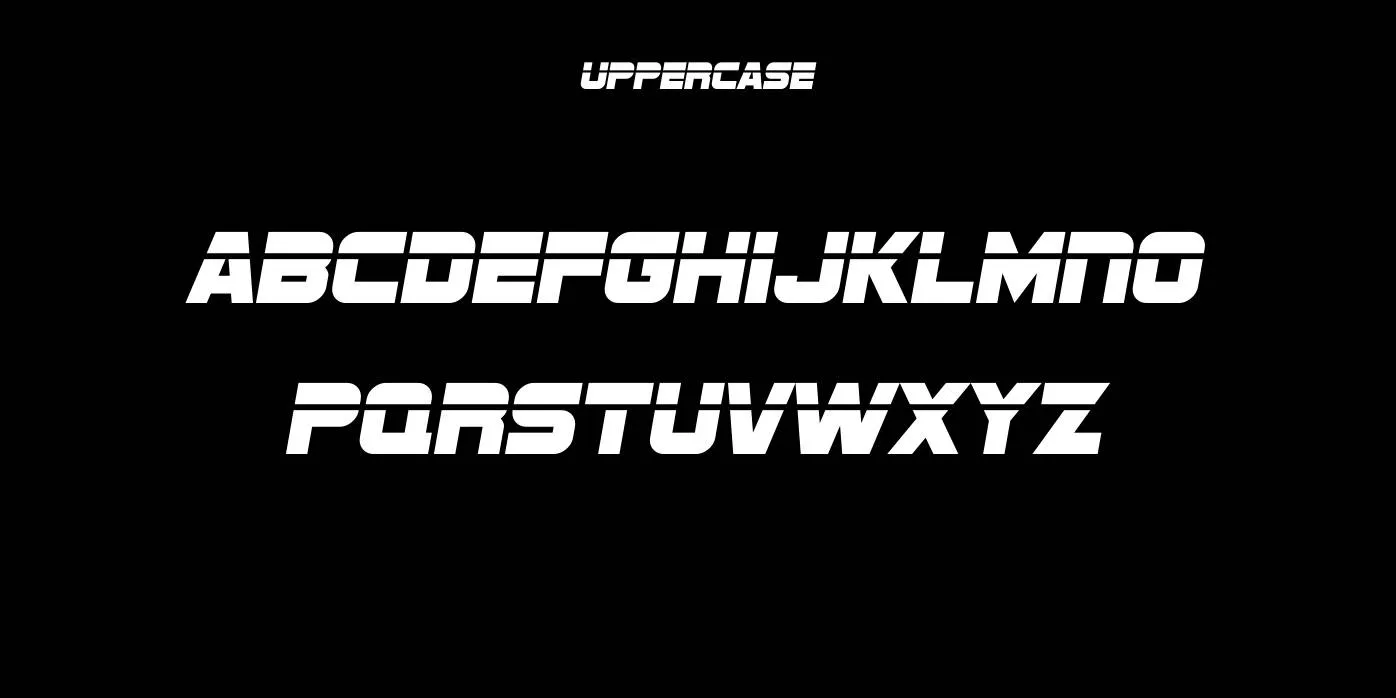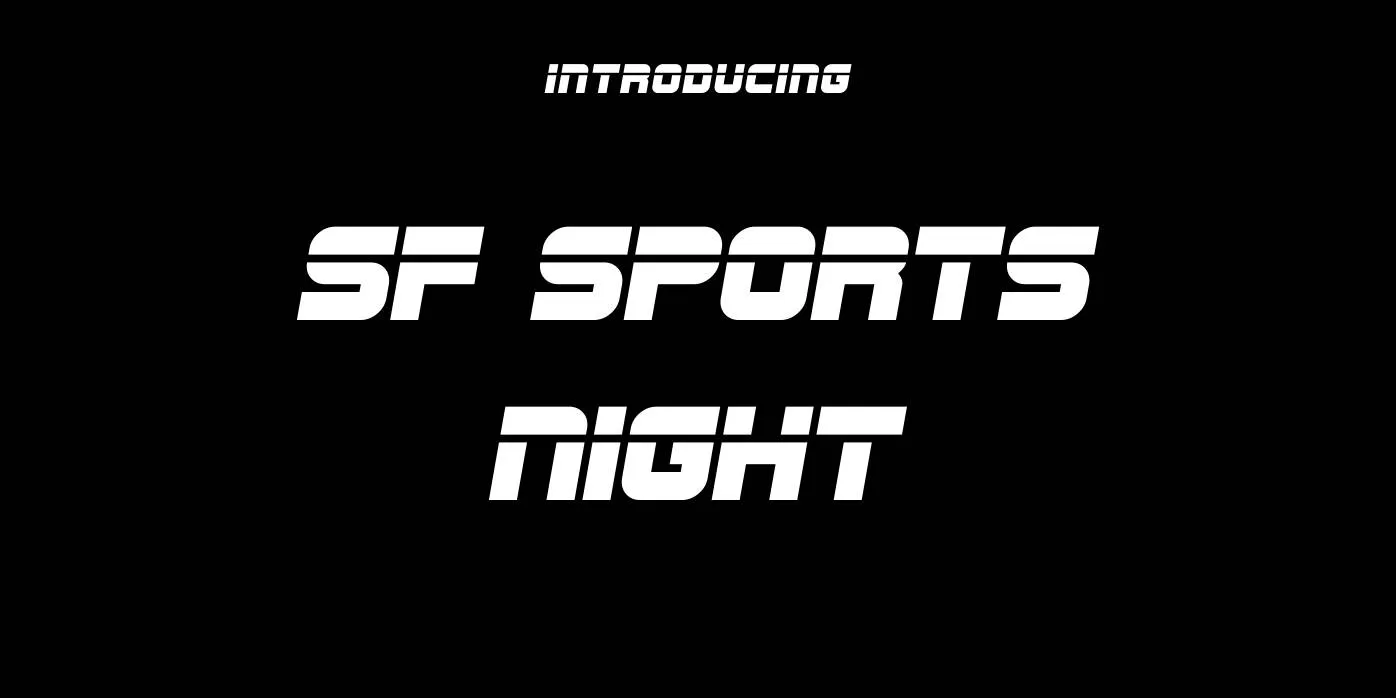
SF Sports Night Font
SF Sports Night Font is a techno typeface that was designed by a famous designer named ShyFoundry. The characters of this texture are stylish, bold, and readable. This typeface has 88 characters and 56 glyphs. The characters of this texture support capital letters, numbers, punctuation, lowercase letters, and special letters.
The family of this font includes 8 different styles. Styles of this family are Night, Night upright, Night NS, Night NS upright, Night Alternate, Night Alternate upright, Night NS Alternate, and Night NS Alternate upright. These various styles make it unique. An online generator tool is also available for your ease.